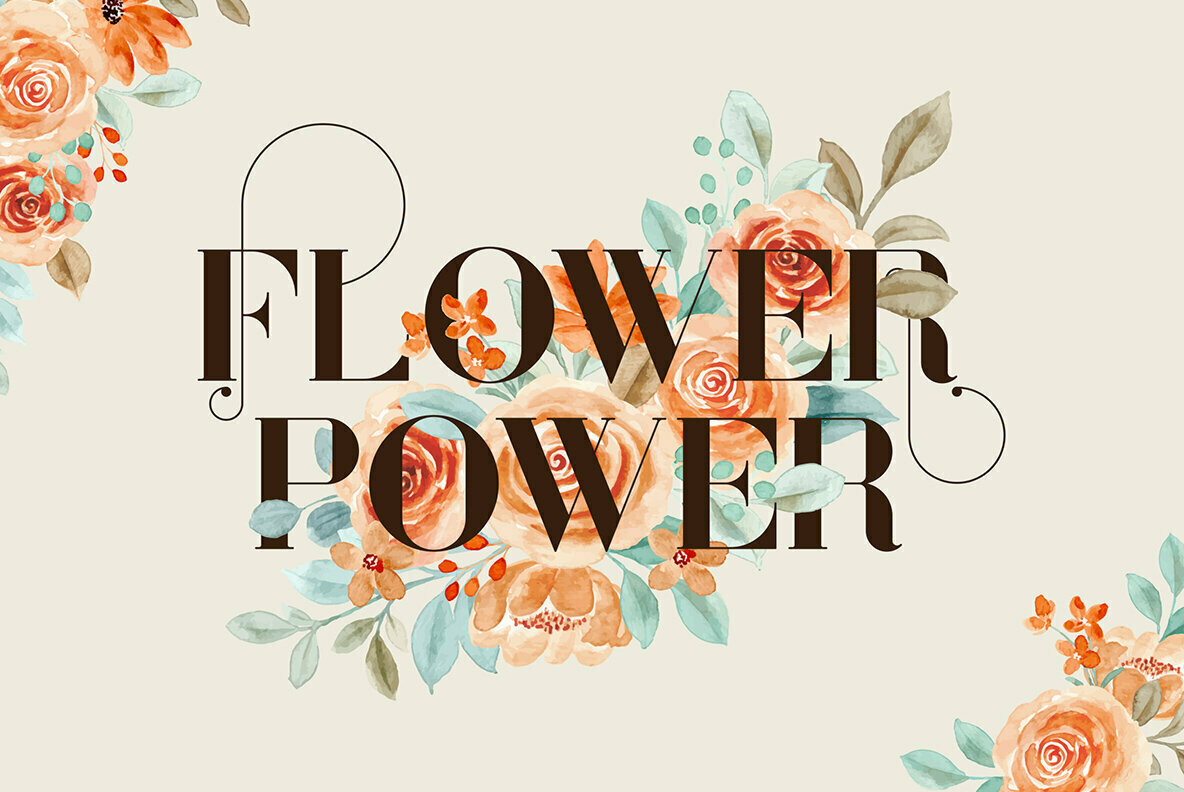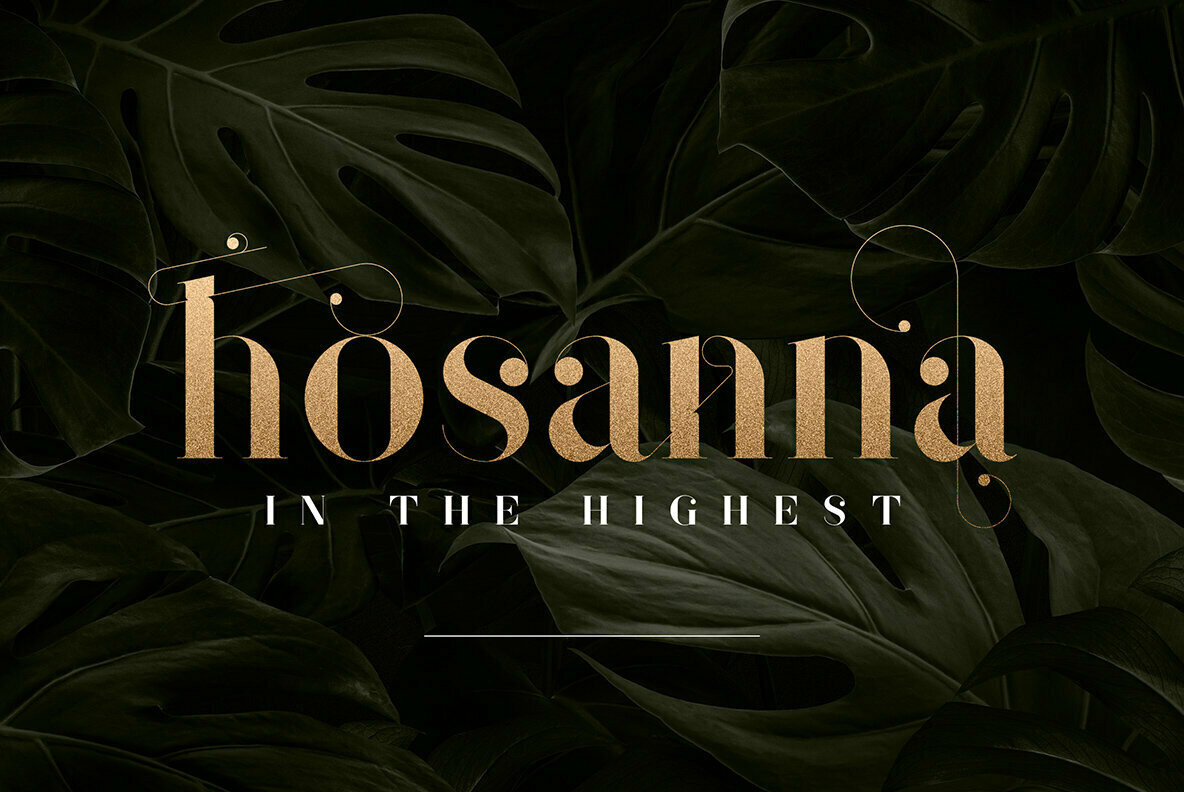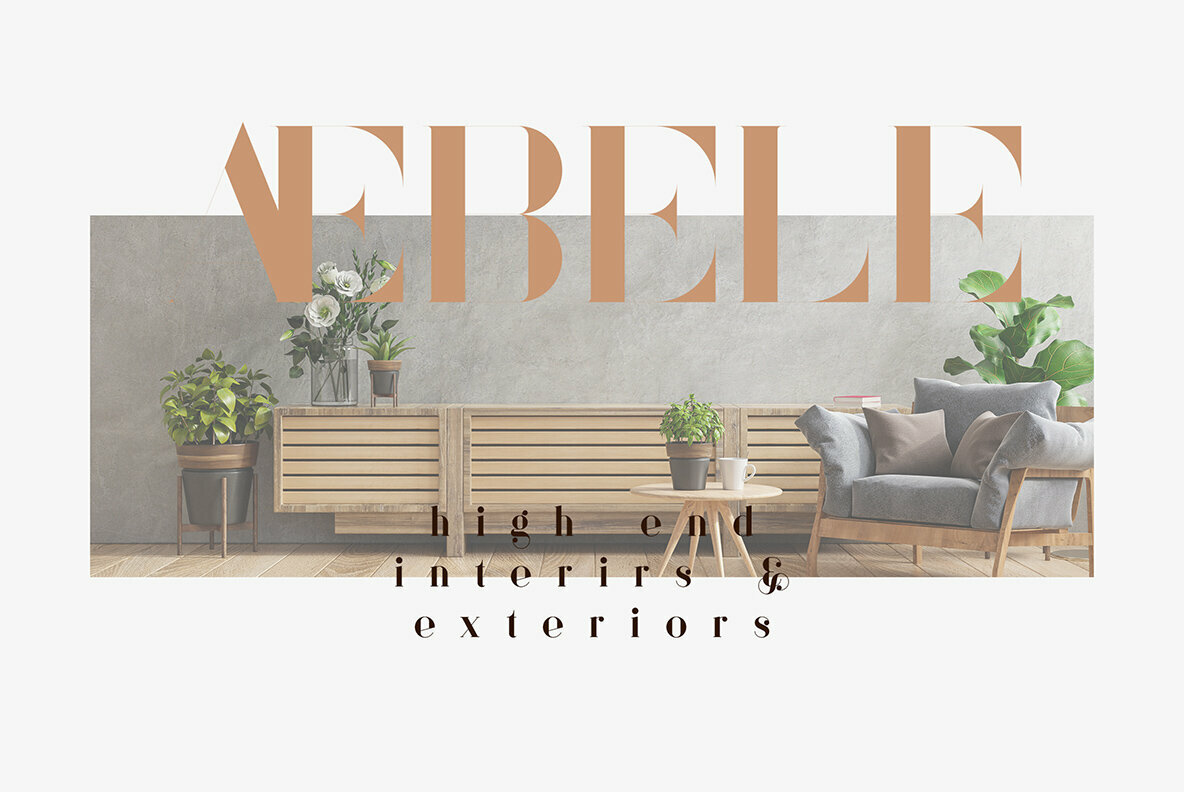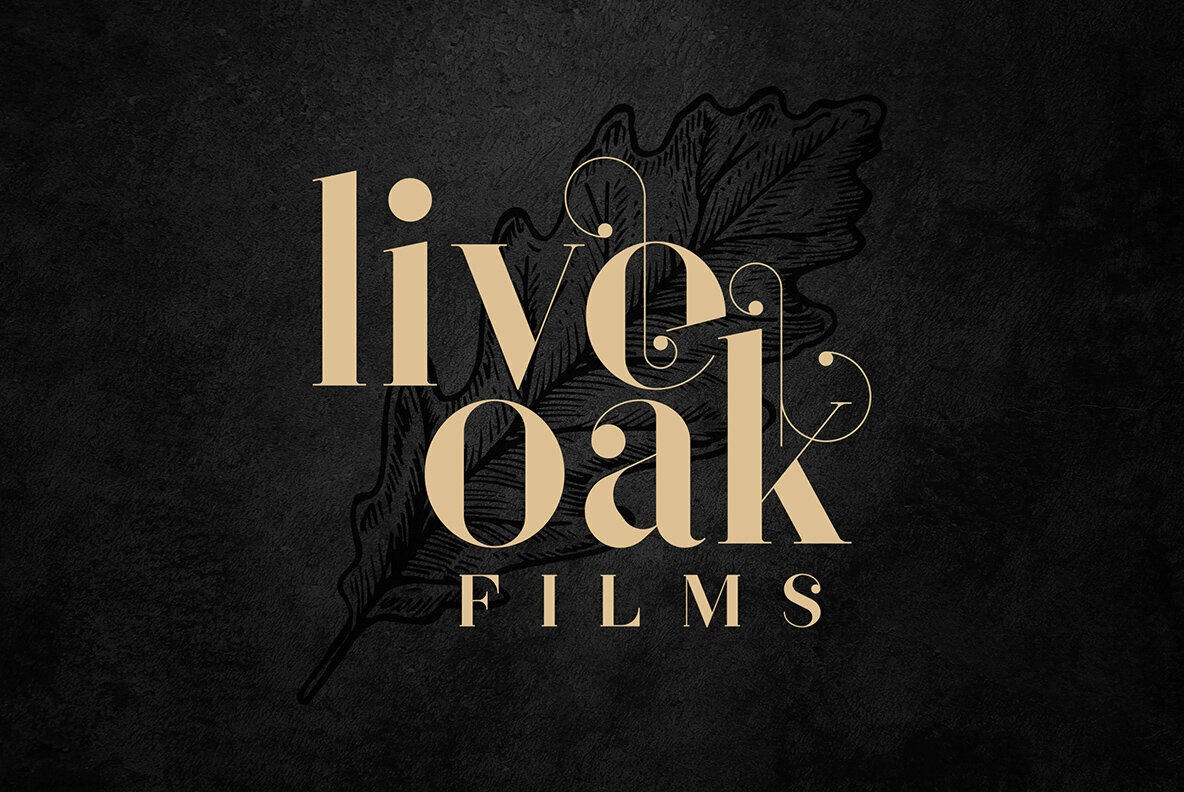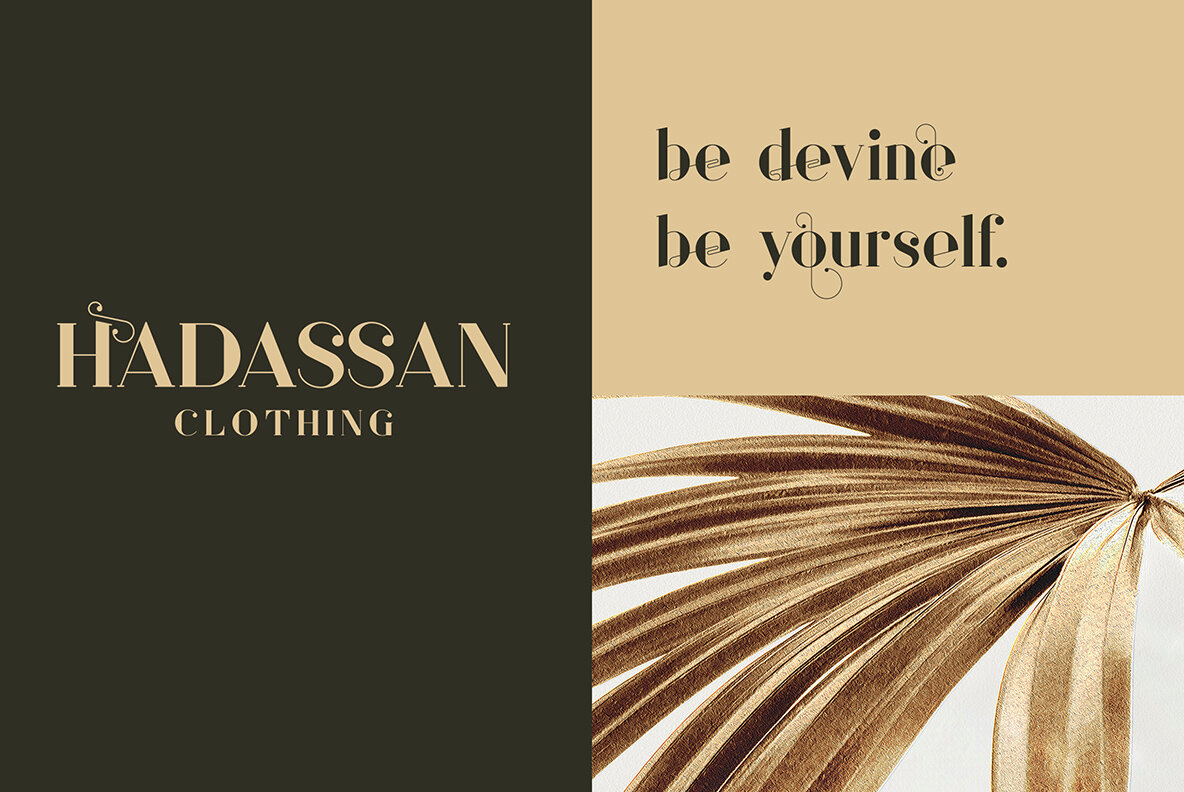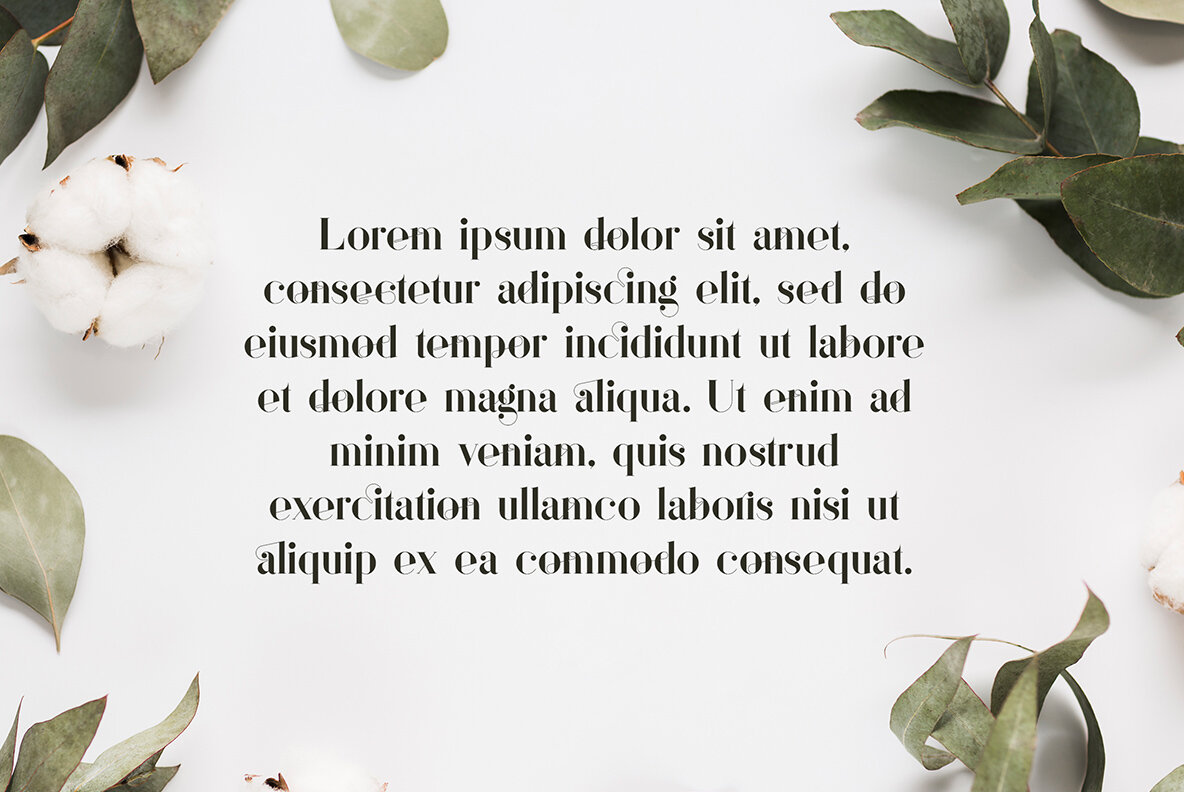
Sonder Serif Font
Sonder Hairline
Sonder Light
Sonder Regular
Sonder Bold
Sonder Black
The Sonder Serif typeface, crafted by the VP Creative Shop, is an effortless blend of sophistication and versatility that lends itself beautifully to a multitude of design applications. Designed with five distinct weights, this typeface enhances projects with its seamless ability to adapt from bold headlines to delicate text overlays. Whether you're crafting a branding masterpiece, designing chic home-ware, or setting the tone for a magazine header, Sonder Serif delivers with style and functionality. Its ligature glyphs and alternate characters, combined with multilingual support, ensure it meets diverse design needs.Sonder Serif Typeface: Elegance in Five Weights